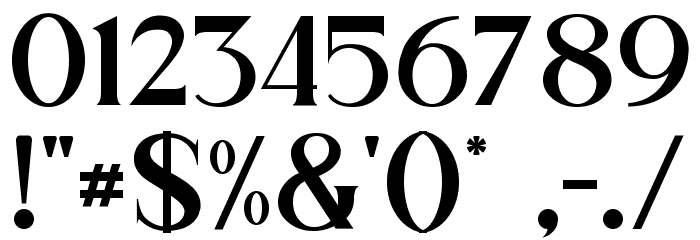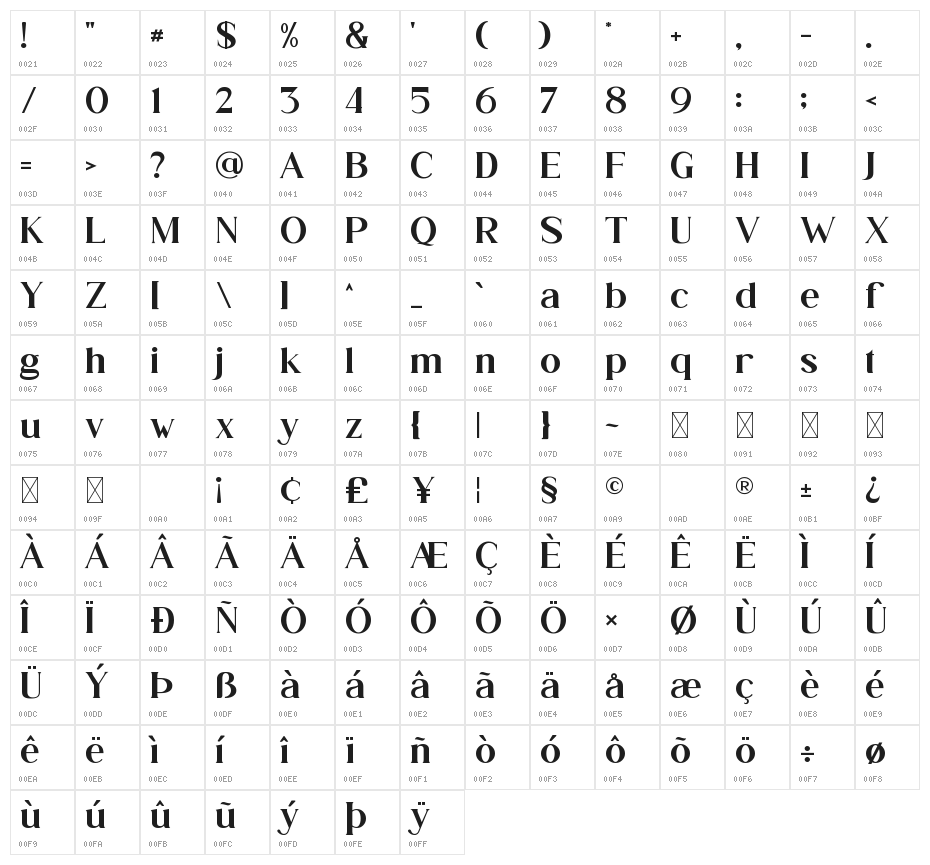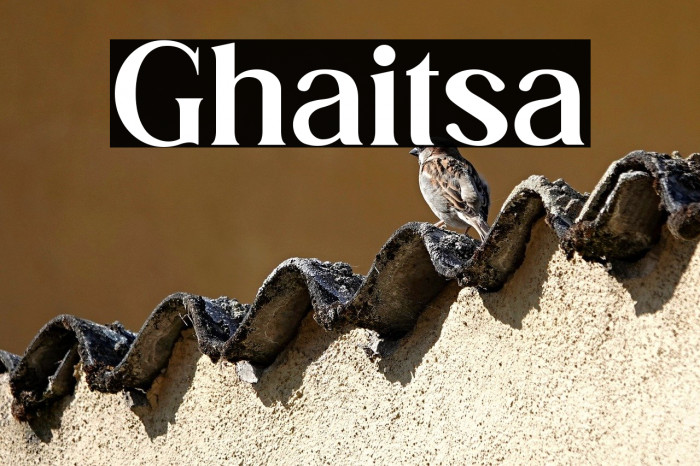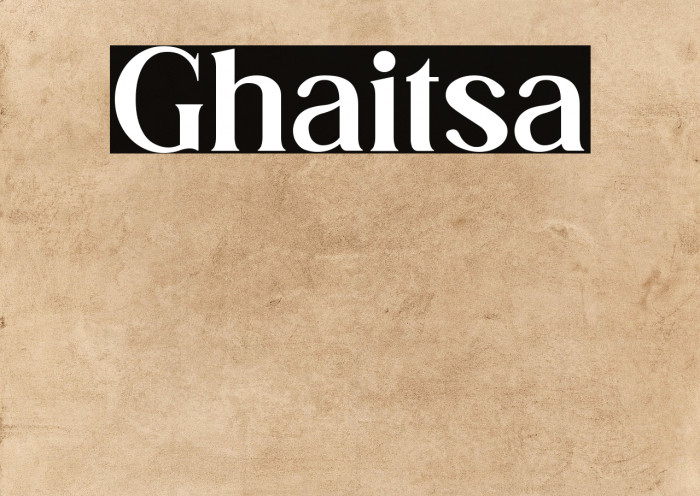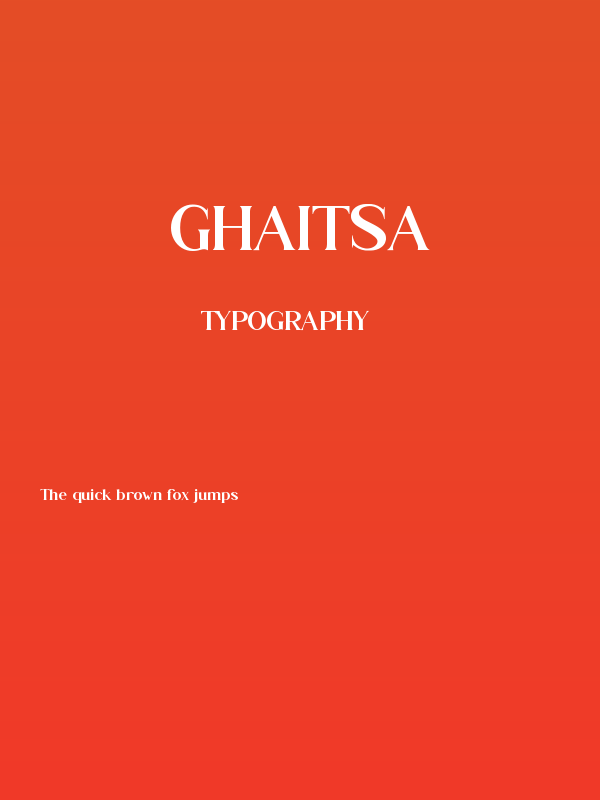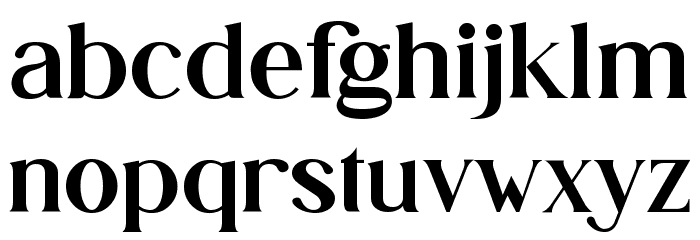
Ghaitsa Font
Ghaitsa Description
This font exhibits a classic serif style with a modern twist, characterized by its elegant and refined letterforms. The uppercase letters are bold and commanding, while the lowercase letters maintain a balanced and harmonious appearance. The numerals are distinct and easily readable, making them suitable for various applications. Special characters are well-integrated, adding versatility to the font. The overall design is sophisticated, with a high contrast between thick and thin strokes, enhancing its readability and aesthetic appeal.
| Proposed Projects | Ideal for editorial design, book covers, branding, and luxury product packaging. |